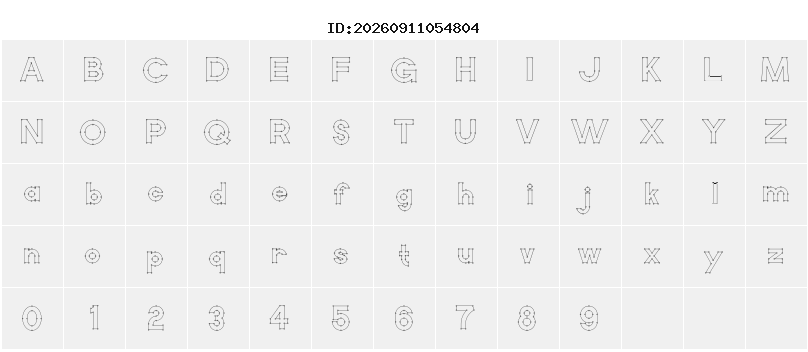
Vector Preview
• Font Name: Vector
• Full Font Name: Vector
About Vector.ttf
Vector.ttf is a modern, elegant sans-serif font designed for ultimate readability and visual harmony. Perfect for branding, headlines, web design, and print materials.